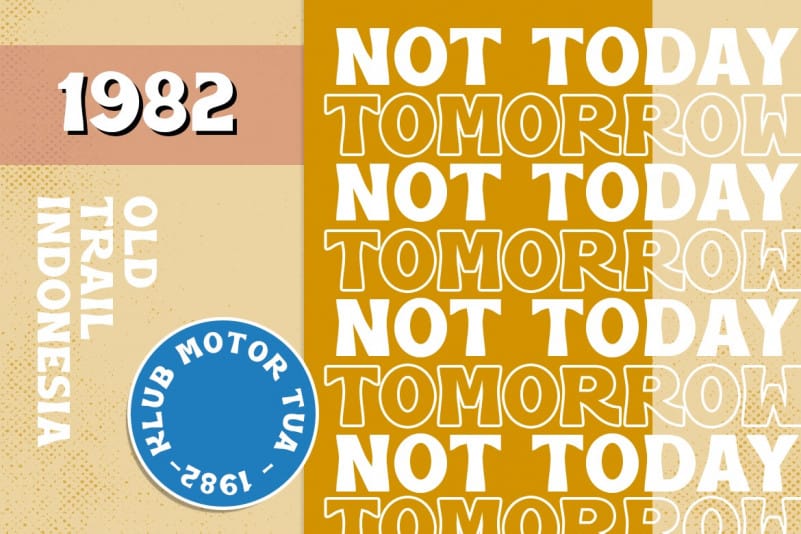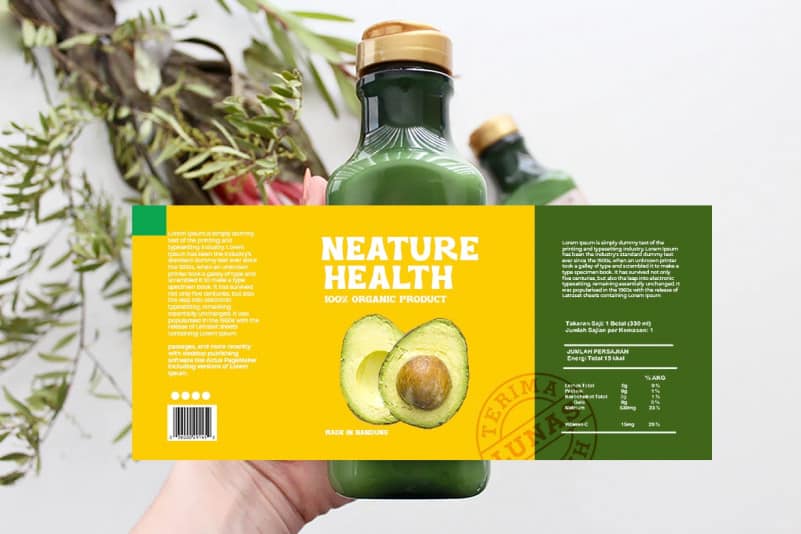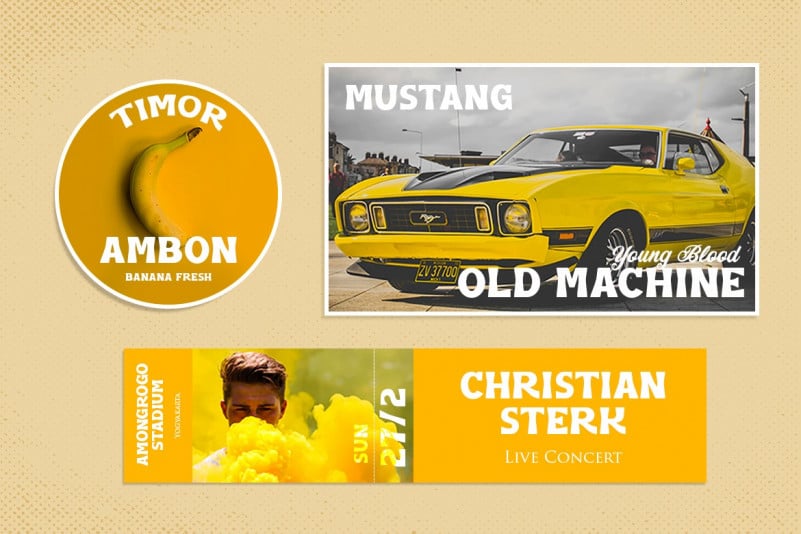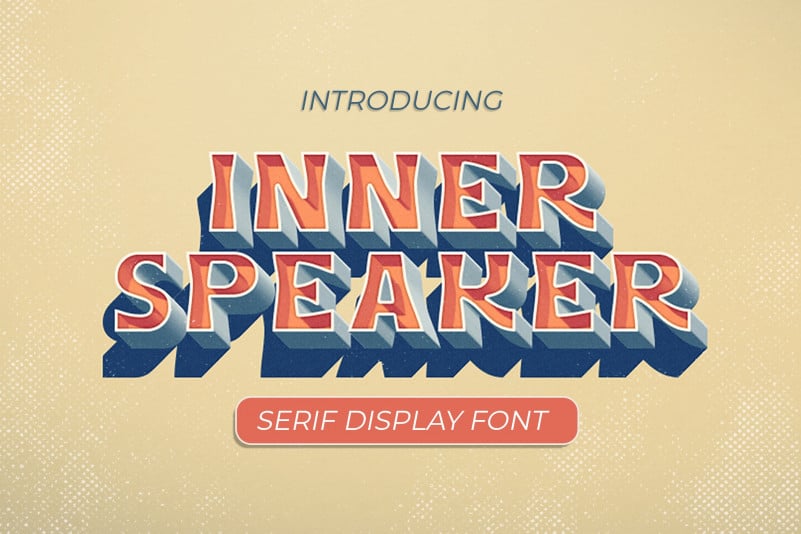
Innerspeaker Display Font
Innerspeaker Display Font is a sans serif font made mainly for headlines, titles, and other short texts. Made from font designer named peterdraw. A stylish, vintage and beautiful serif font with an elegant feel.
Innerspeaker Display Font is perfect for display projects such as quoted text, postcard, logo, presentation, nature-theme, product packaging and much more. It’s also perfect for vintage and old themed – or a stylish text overlay to any background image.